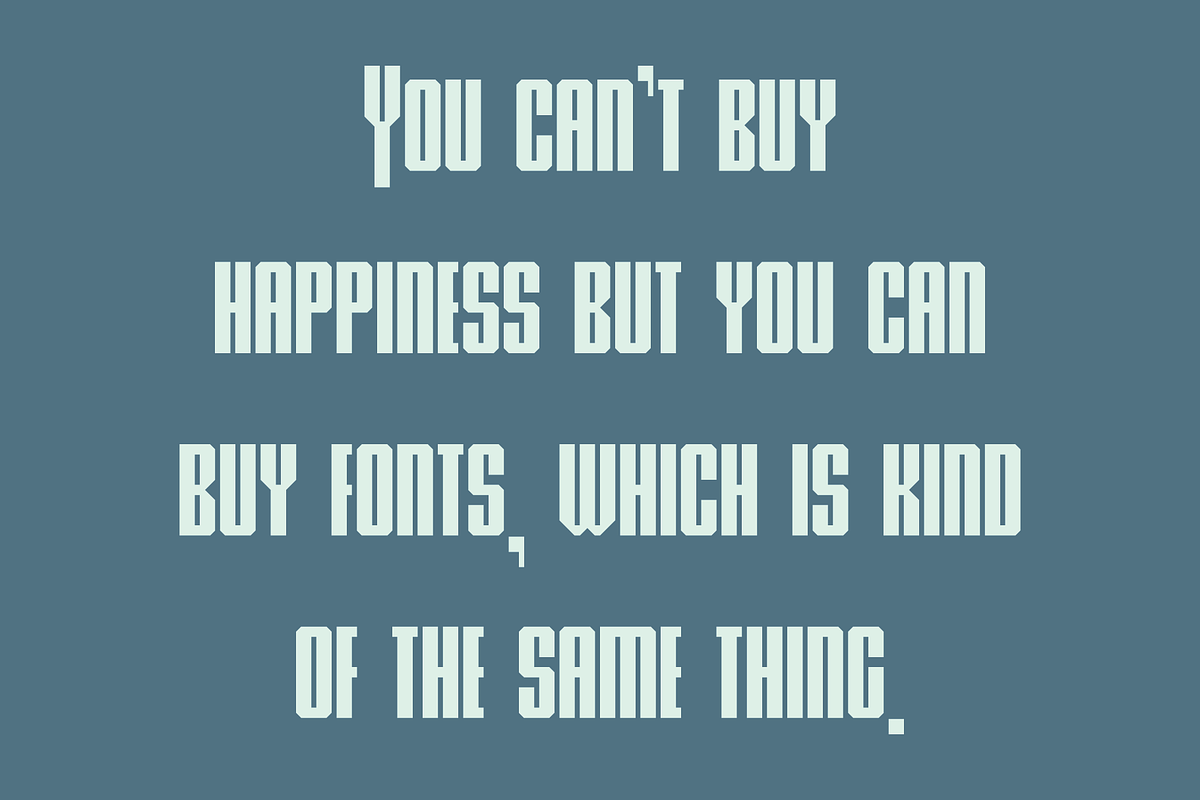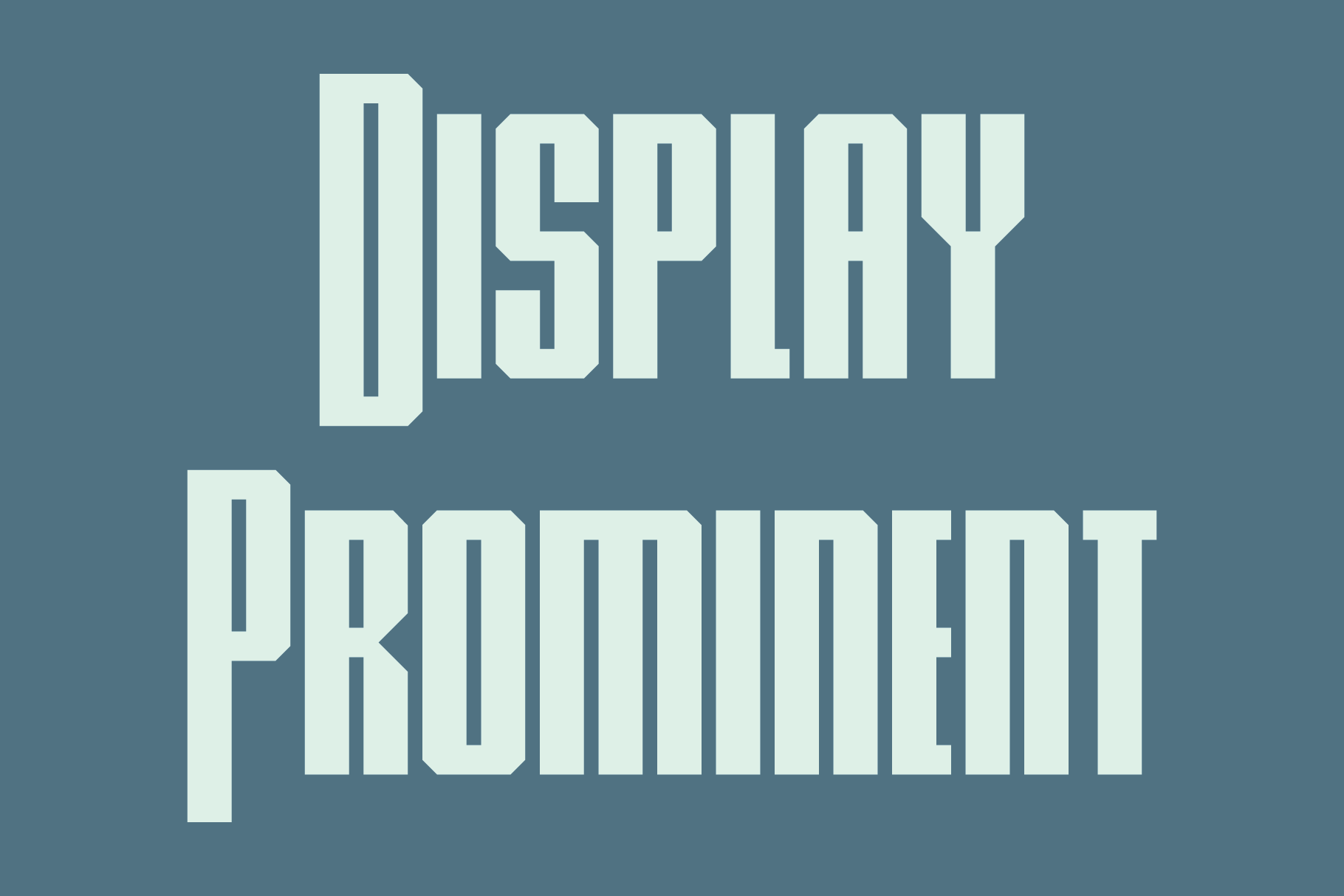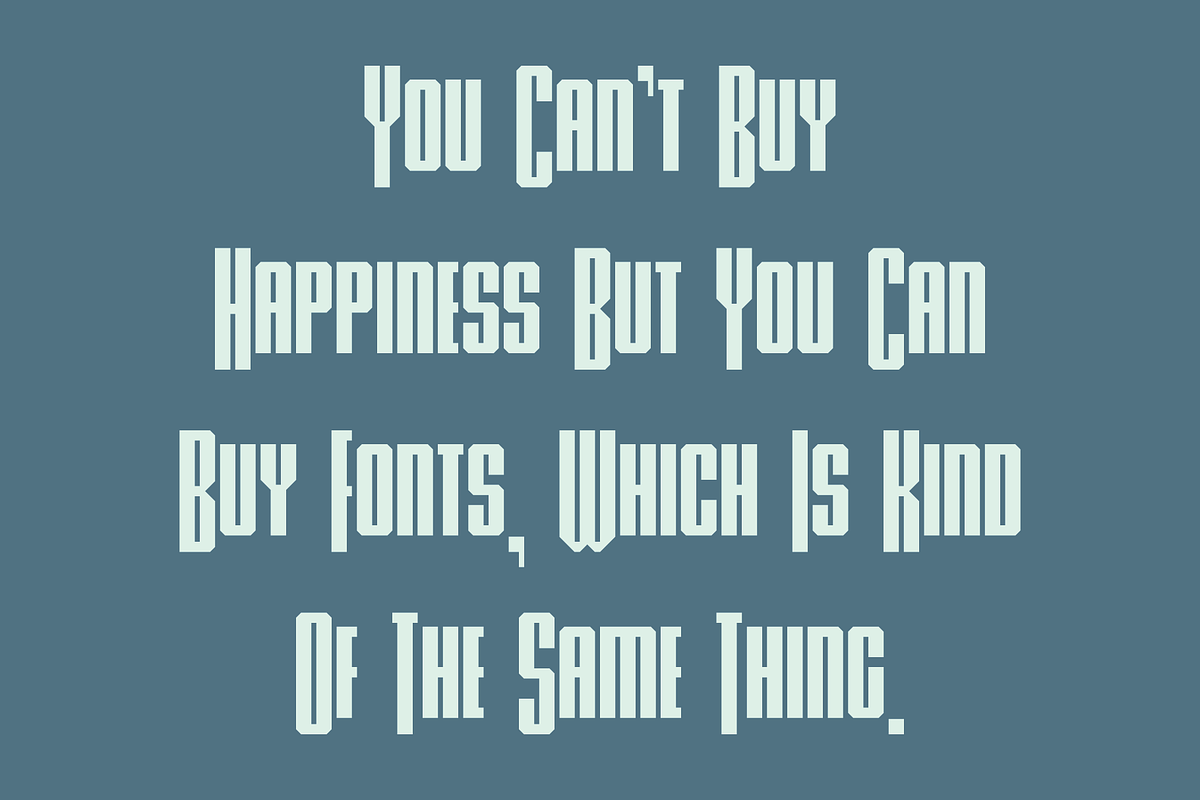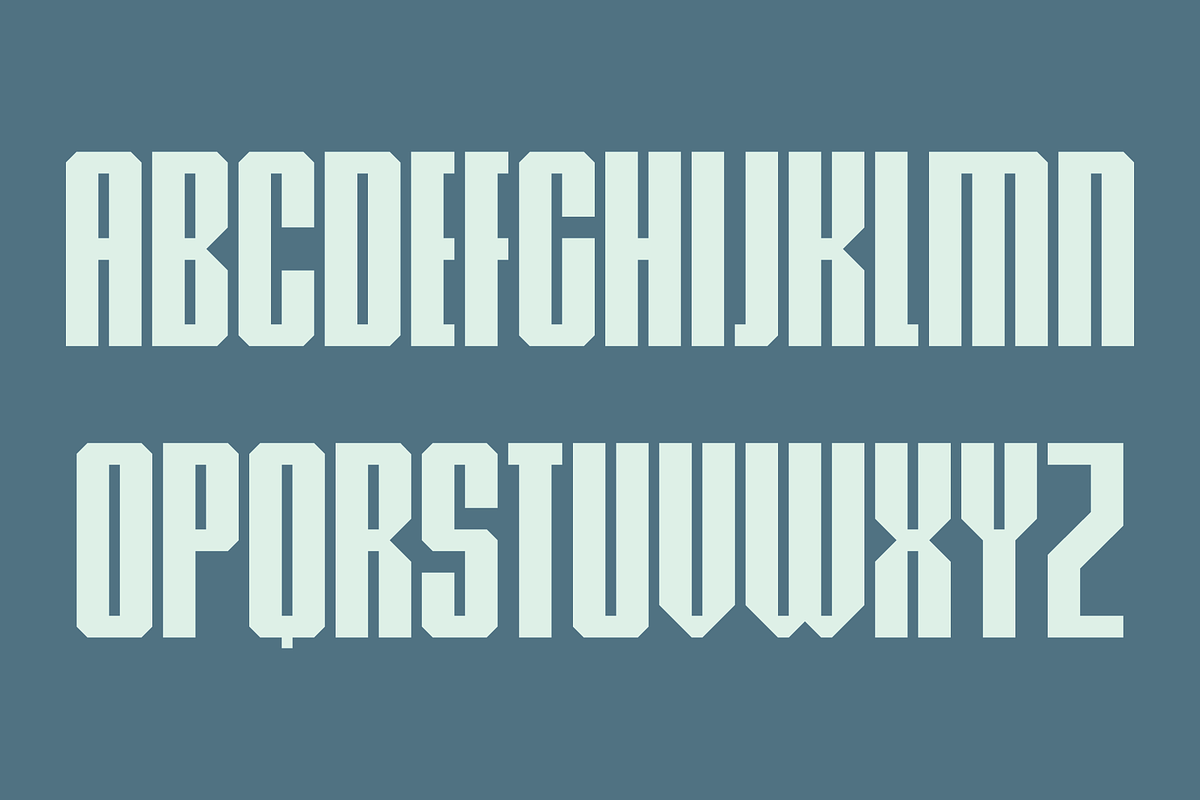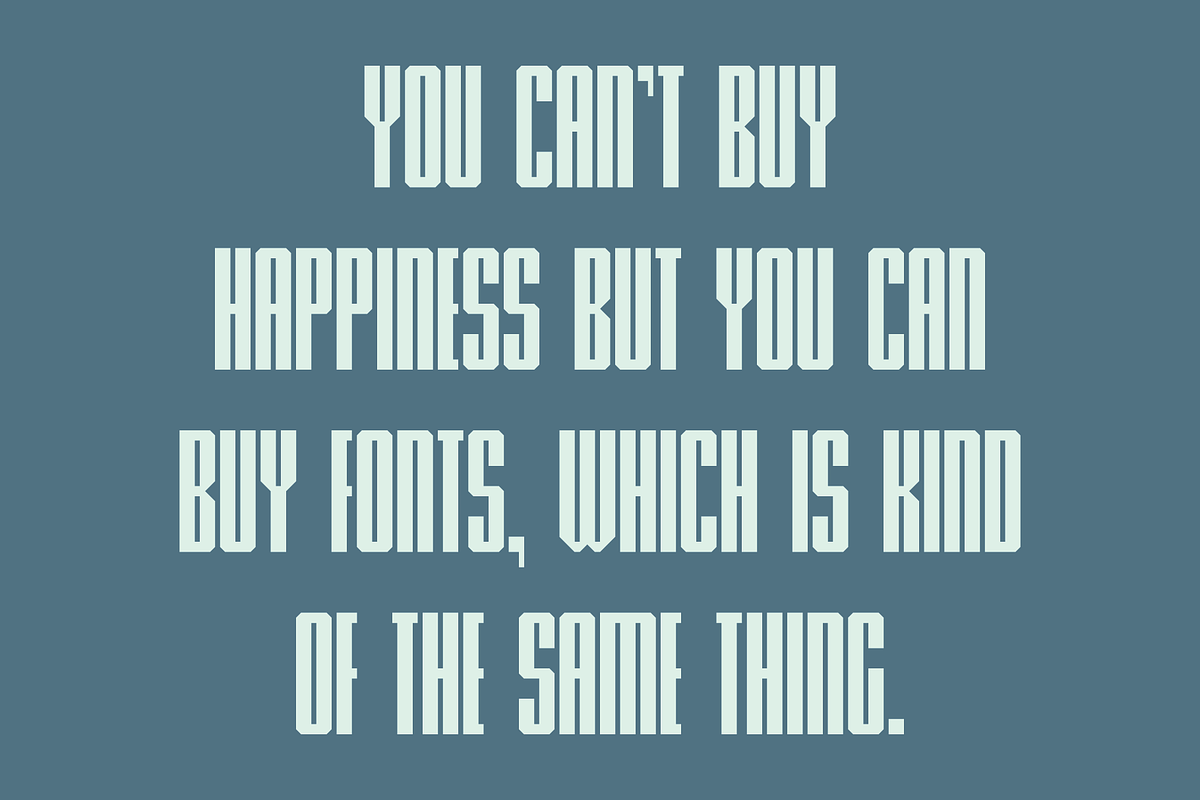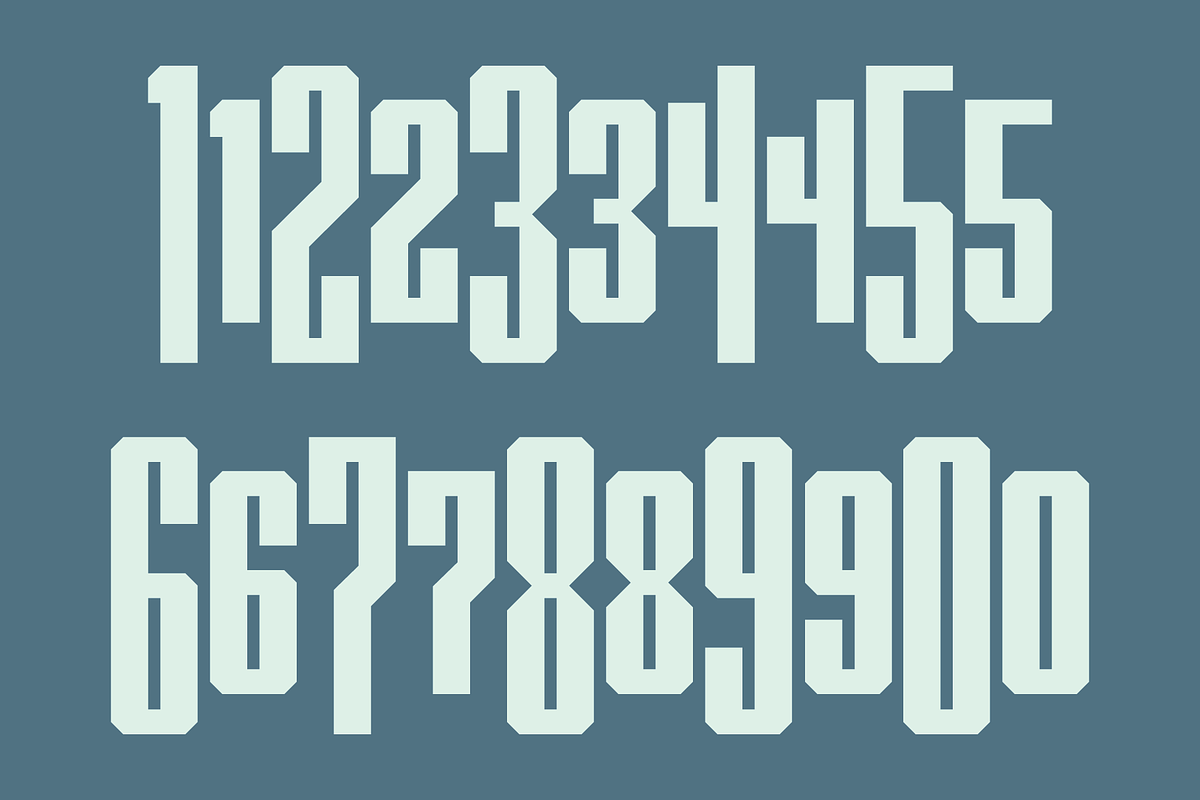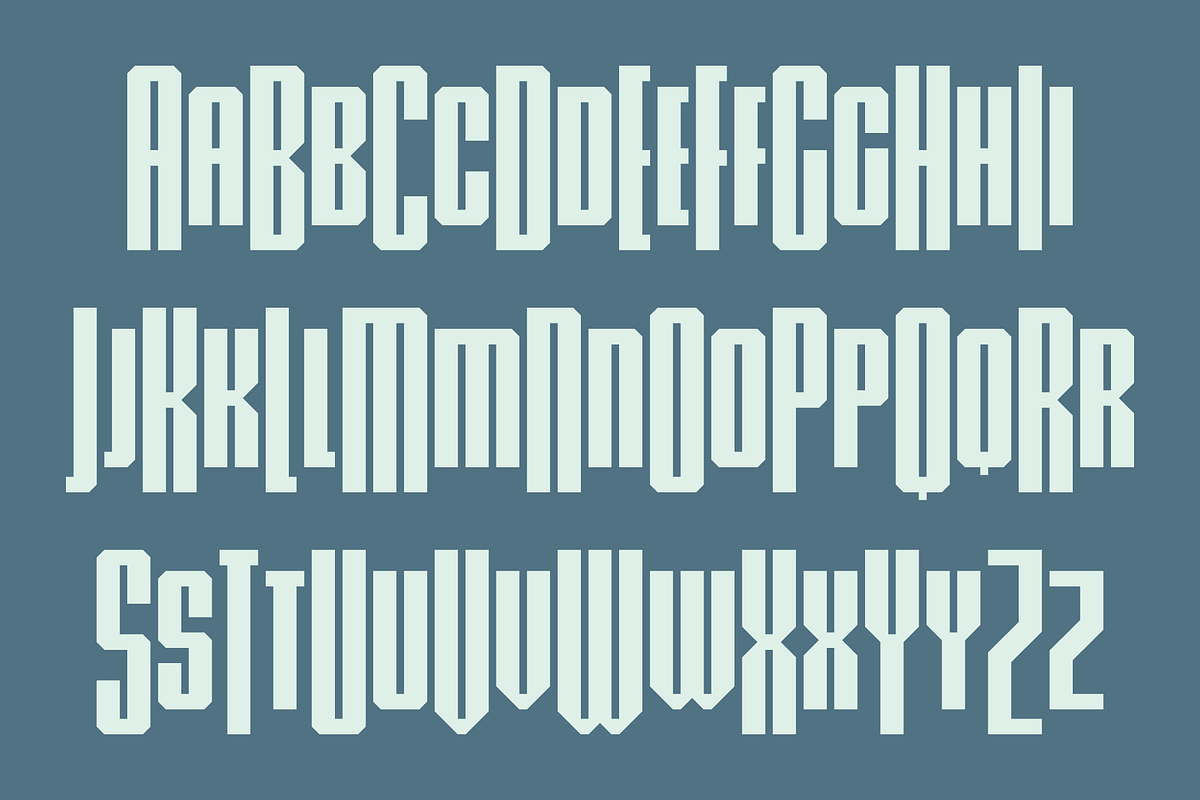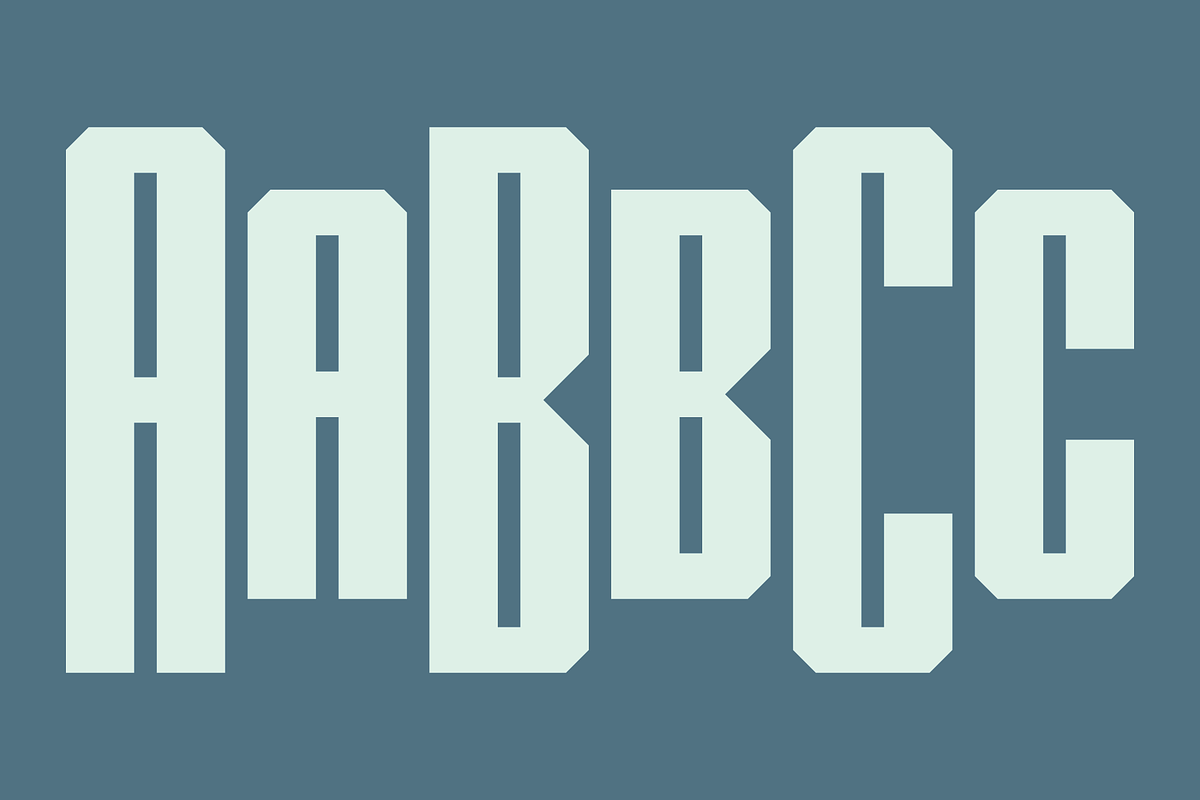
Display Prominent Font
Display Prominent is not intended for text use. It was designed specifically for display, headline, logotype, branding, and similar applications. It has an uppercase alphabet, there are small caps that are centered horizontally on the tall caps under the character set keys, numbers, small numbers, dollar, pound and euro signs, and basic punctuation.